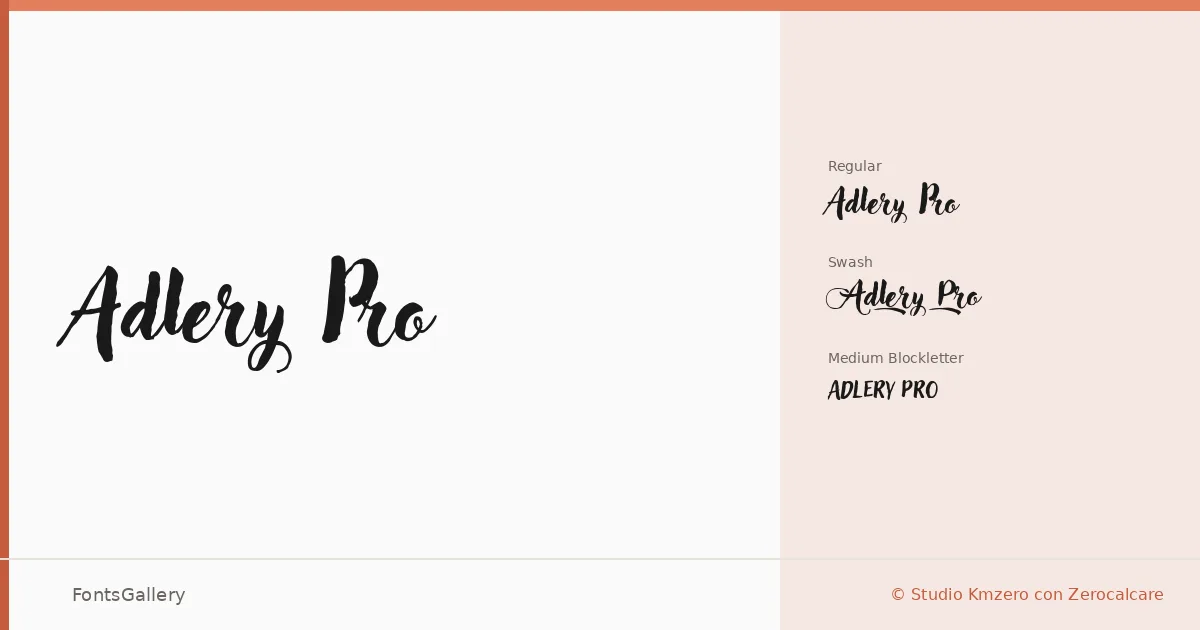
About Adlery Pro Font
There is a looseness to this script that feels genuinely calligraphic — the kind of hand that moves with confidence rather than caution. Cosimo Lorenzo Pancini of Studio Kmzero con Zerocalcare built the family around that energy, and the result is a flowing Latin script with broader reach than most: Latin, Cyrillic, and partial Greek coverage extend its usefulness well beyond the usual European set. The letterforms carry real warmth without tipping into sentimentality.
Adlery Pro arrives as three distinct TTF cuts, each serving a different register. The Regular leans elegant and romantic — fluid strokes, natural connections, a slightly modern tilt. The Swash Regular pushes that further with decorative flourishes that reward generous display sizes. The Medium Blockletter steps in a different direction entirely, trading the cursive softness for structured, upright letterforms that carry a playful weight. Together the three styles cover a wider tonal range than a typical single-style script family.
The family reads clearly at poster scale and holds its character in branding lockups, logotypes, social media graphics, and wedding stationery — anywhere the job calls for something that feels handcrafted but controlled. For text pairing, the listed companions span a useful range: Canela and Adobe Caslon Pro bring editorial warmth, Helvetica and Asap offer clean contrast, and ABC Arizona sits somewhere between — all good options depending on how much you want the script to carry the tone versus share it.